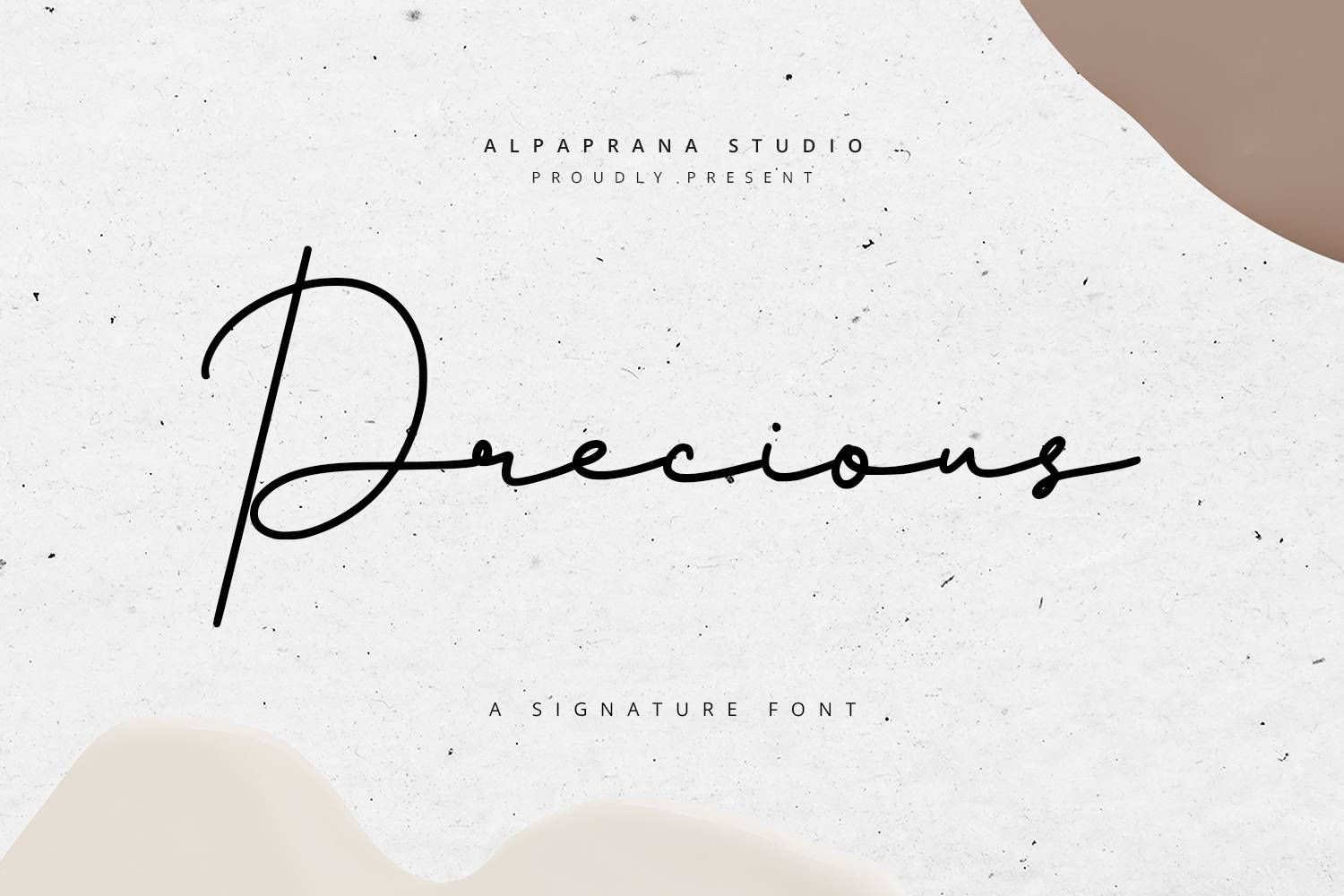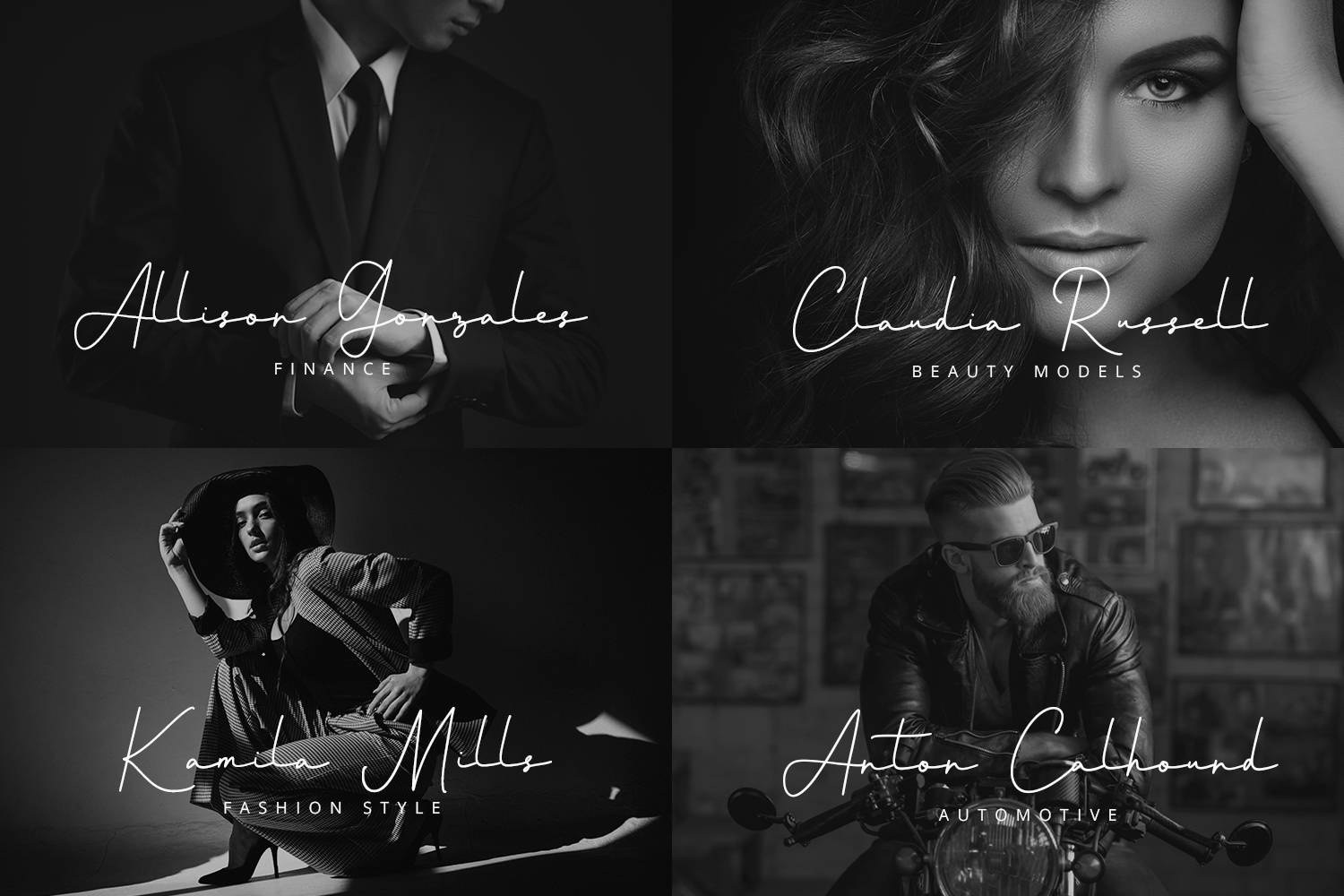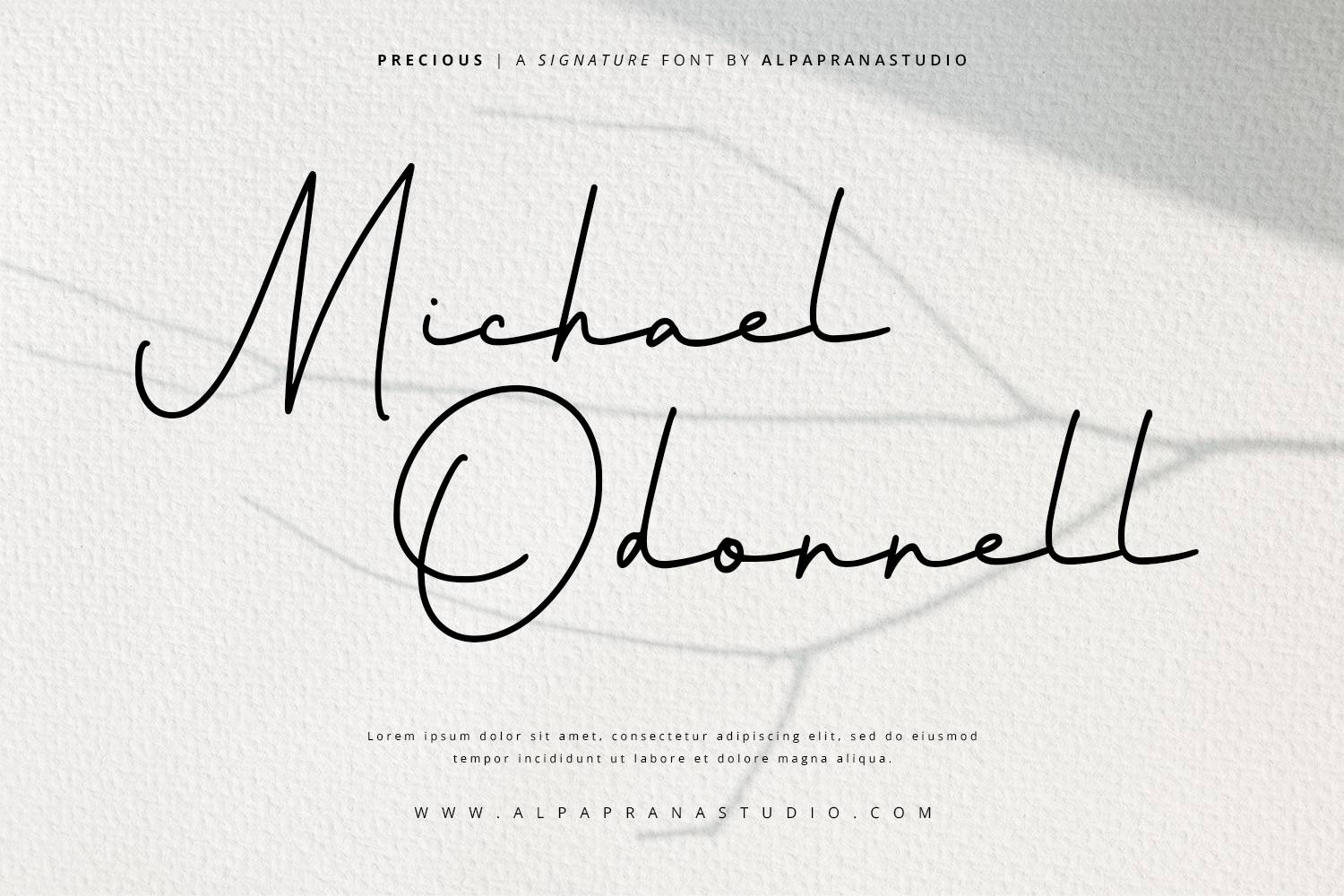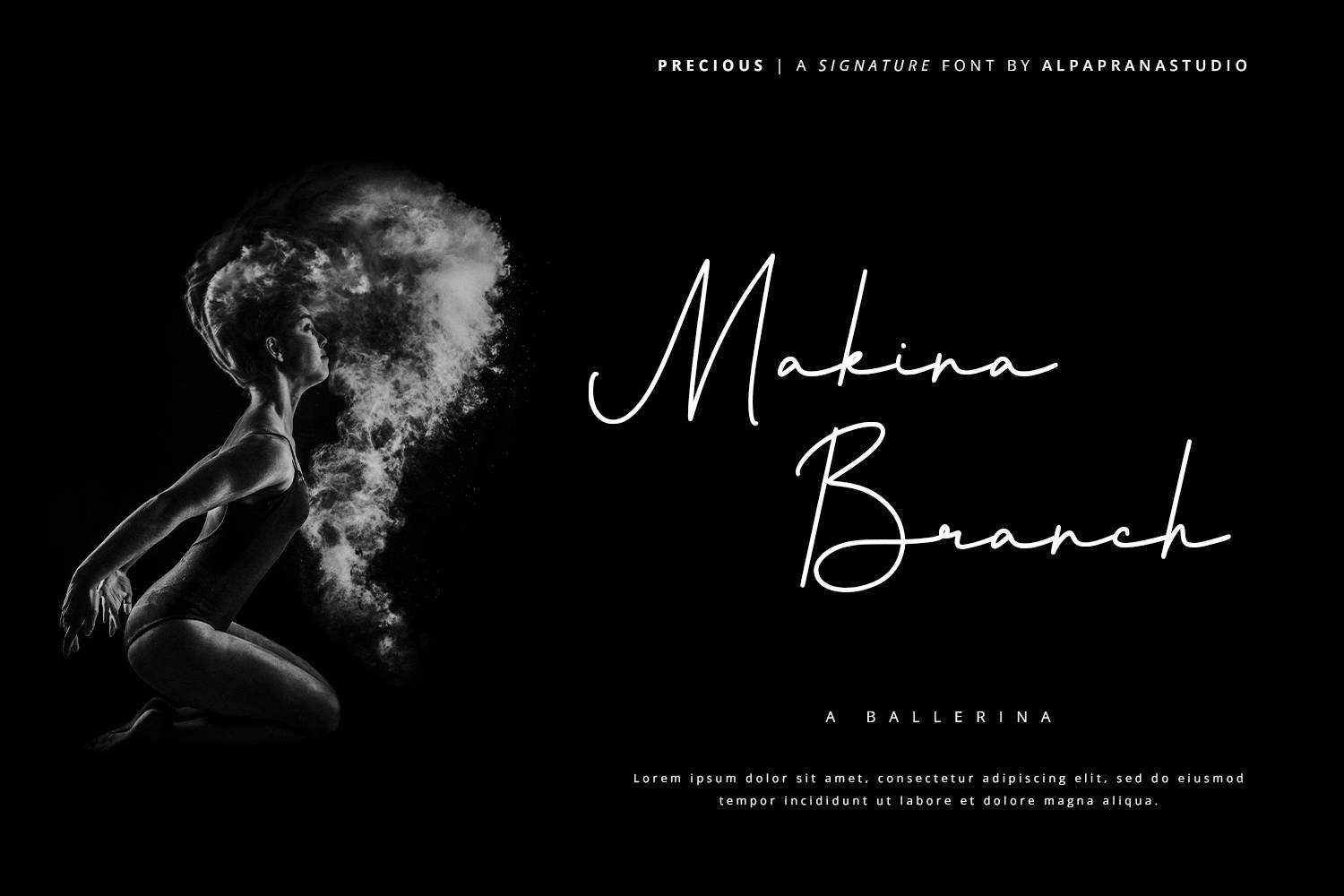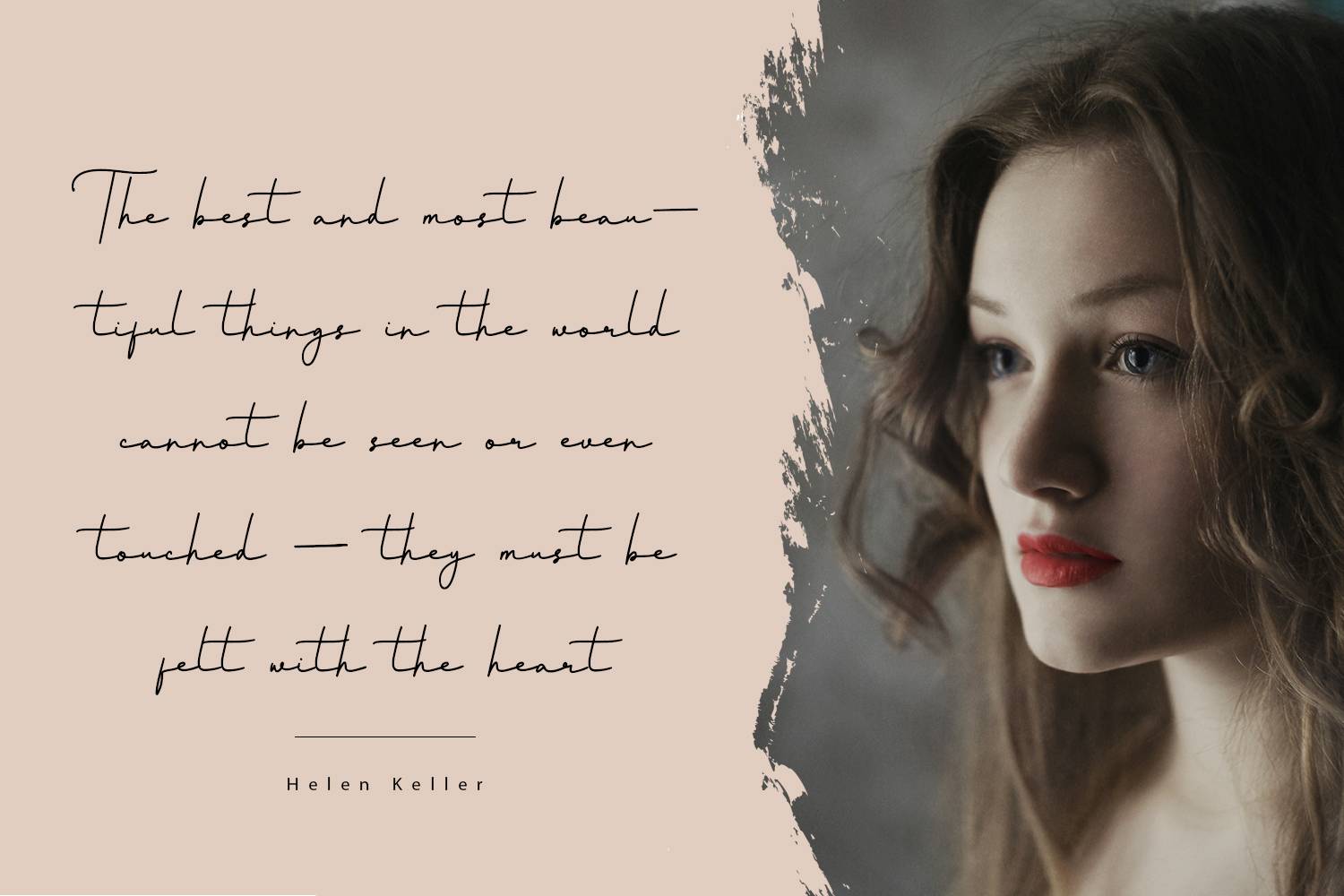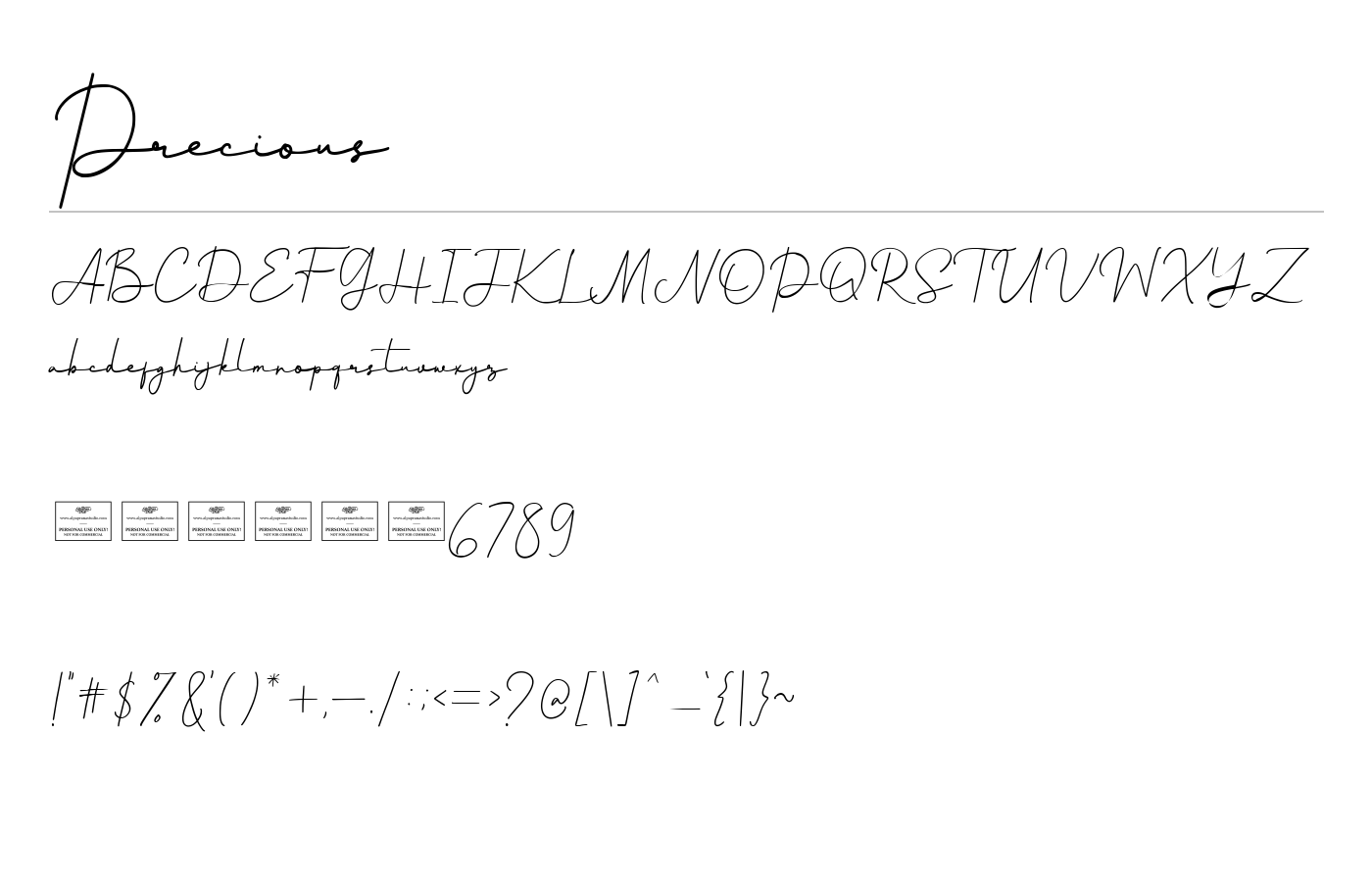
Precious Font is a delicate and elegant handwritten script featuring thin, flowing strokes with a graceful, natural feel. Its light weight and airy spacing make it perfect for sophisticated branding, wedding invitations, and stylish editorial design where a personal, refined touch is desired. This font conveys a sense of charm and intimacy while remaining legible and modern.
Precious Font
About Precious Font